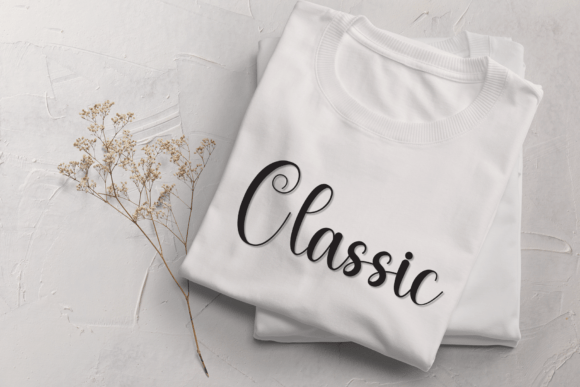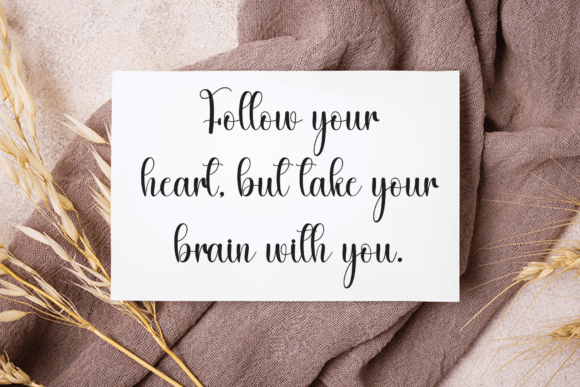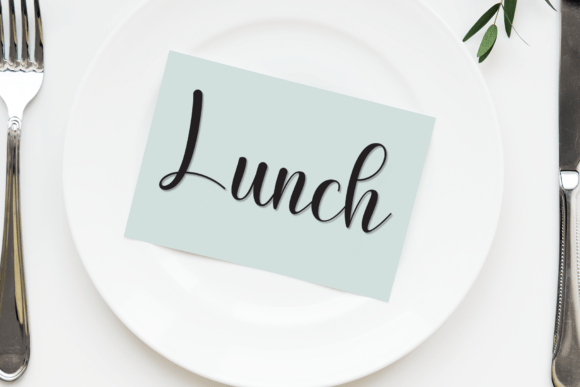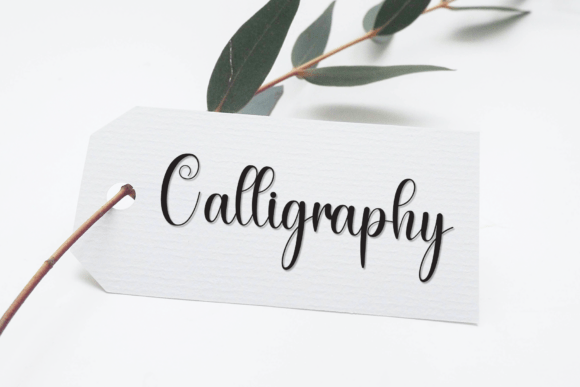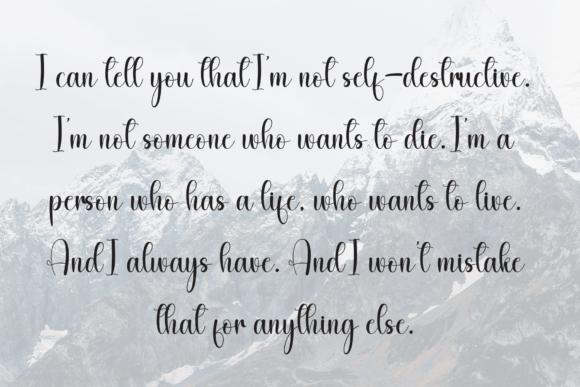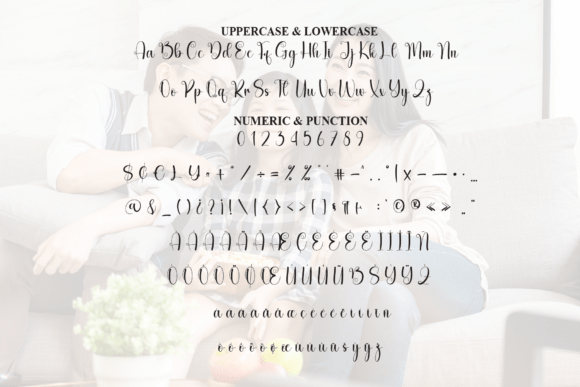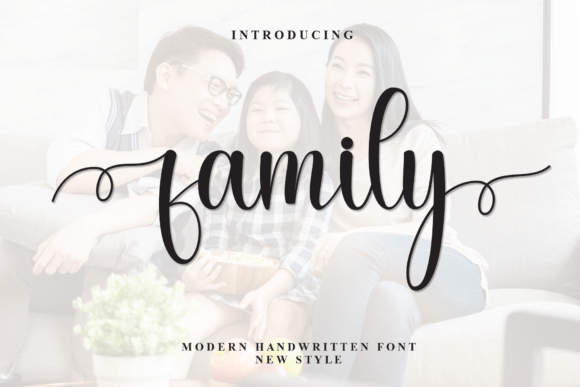
Introducing Family Font: Elevate Your Designs with Whimsy and Elegance
Are you tired of using the same old fonts in your designs? Look no further! We’re excited to introduce Family Font, a charismatic display font that adds a touch of warmth and elegance to any artistic ensemble. With its enchanting touch of whimsy, this font is perfect for designers and crafters looking to elevate their designs and add a dash of creative delight.
The Perfect Blend of Whimsy and Sophistication
Family Font is delicately penned with warmth and elegance, making it a valued augmentation for any artistic ensemble. Its extraordinary suitability for joy-filled wedding invitations, endearing greeting cards, and any design chasing a flicker of happiness, sets it apart from other fonts. Whether you’re a designer, crafter, or DIY enthusiast, this font is sure to inspire your creativity and take your designs to the next level.
What Makes Family Font So Special?
- Unique and Eye-catching: Family Font’s distinctive style is sure to grab attention and leave a lasting impression. Its whimsical touch adds a playful and creative element to your designs, making them stand out from the crowd.
- Versatile: This font is perfect for a wide range of design projects, from wedding invitations and greeting cards to posters, flyers, and more. Its versatility makes it an excellent addition to any typographic collection.
- Elegant and Refined: Despite its whimsical touch, Family Font exudes elegance and sophistication. Its delicate lines and curves make it perfect for designs that require a touch of refinement and poise.
How to Use Family Font in Your Designs
Family Font is incredibly easy to use and can be incorporated into your designs in a variety of ways. Here are a few ideas to get you started:
- Wedding Invitations: Add a touch of whimsy and romance to your wedding invitations with Family Font. Its elegant and refined style makes it perfect for formal and informal wedding designs.
- Greeting Cards: Create endearing and personalized greeting cards with Family Font. Its playful and creative style is sure to bring a smile to the recipient’s face.
- Posters and Flyers: Use Family Font to add a touch of elegance and sophistication to your posters and flyers. Its unique and eye-catching style is sure to grab attention and leave a lasting impression.
Why Designers and Crafters Love Family Font
Family Font has quickly become a favorite among designers and crafters, and for good reason. Here are just a few reasons why:
- Easy to Read: Despite its whimsical touch, Family Font is incredibly easy to read. Its clear and concise lines make it perfect for designs that require a touch of elegance and sophistication.
- Highly Versatile: Family Font can be used in a wide range of design projects, from formal and informal designs to digital and print projects.
- Unique and Creative: Family Font’s distinctive style is sure to inspire your creativity and take your designs to the next level. Its whimsical touch adds a playful and creative element to your designs, making them stand out from the crowd.
In conclusion, Family Font is a charismatic display font that adds a touch of warmth and elegance to any artistic ensemble. Its enchanting touch of whimsy makes it perfect for designers and crafters looking to elevate their designs and add a dash of creative delight. With its extraordinary suitability for joy-filled wedding invitations, endearing greeting cards, and any design chasing a flicker of happiness, Family Font is sure to become a valued addition to your typographic collection.